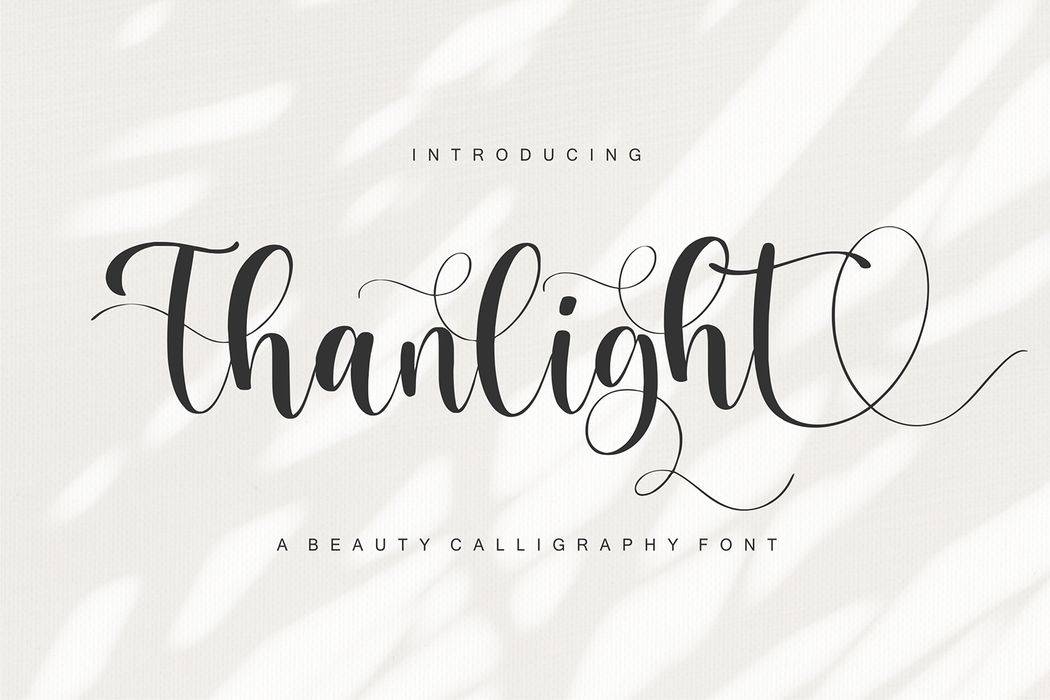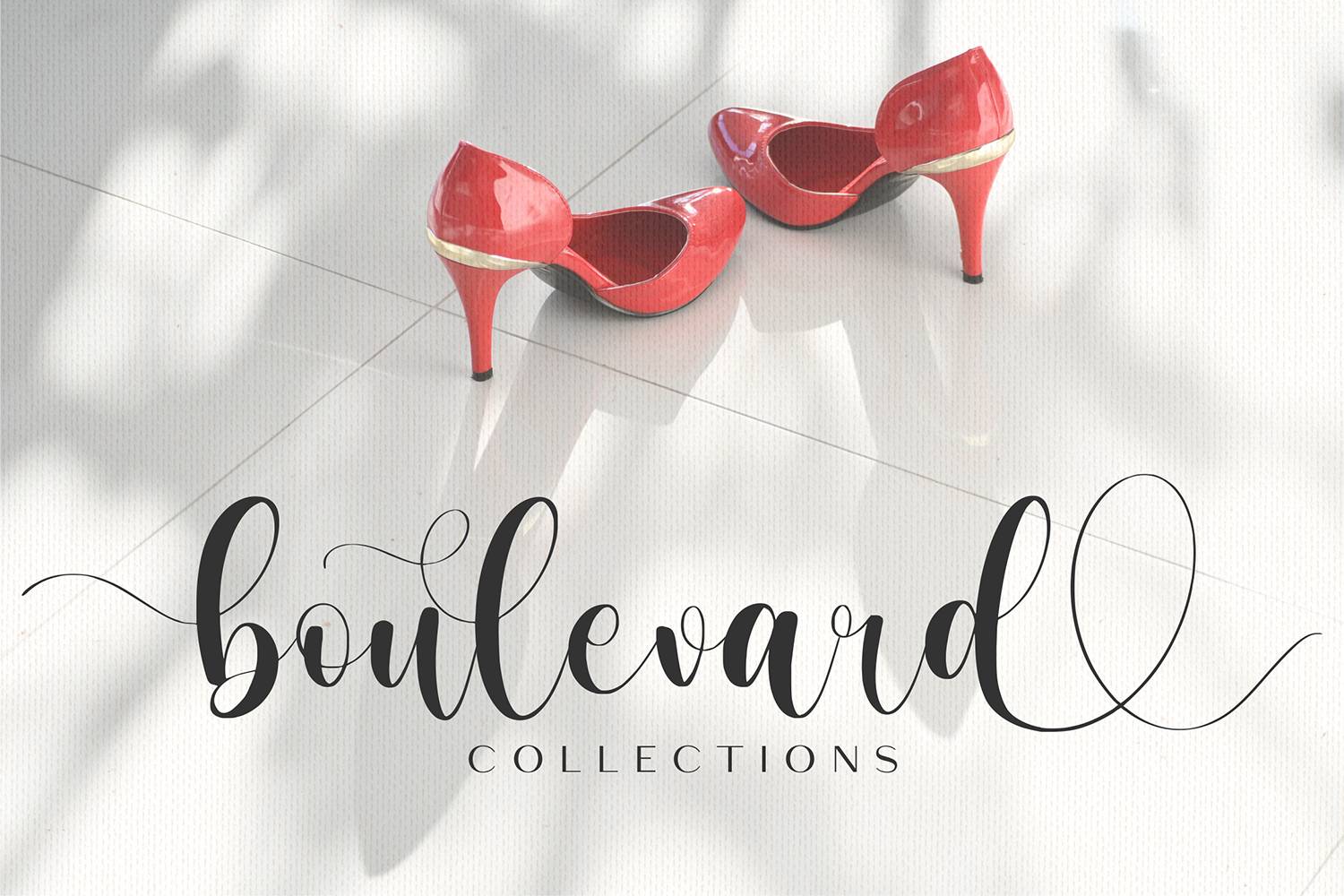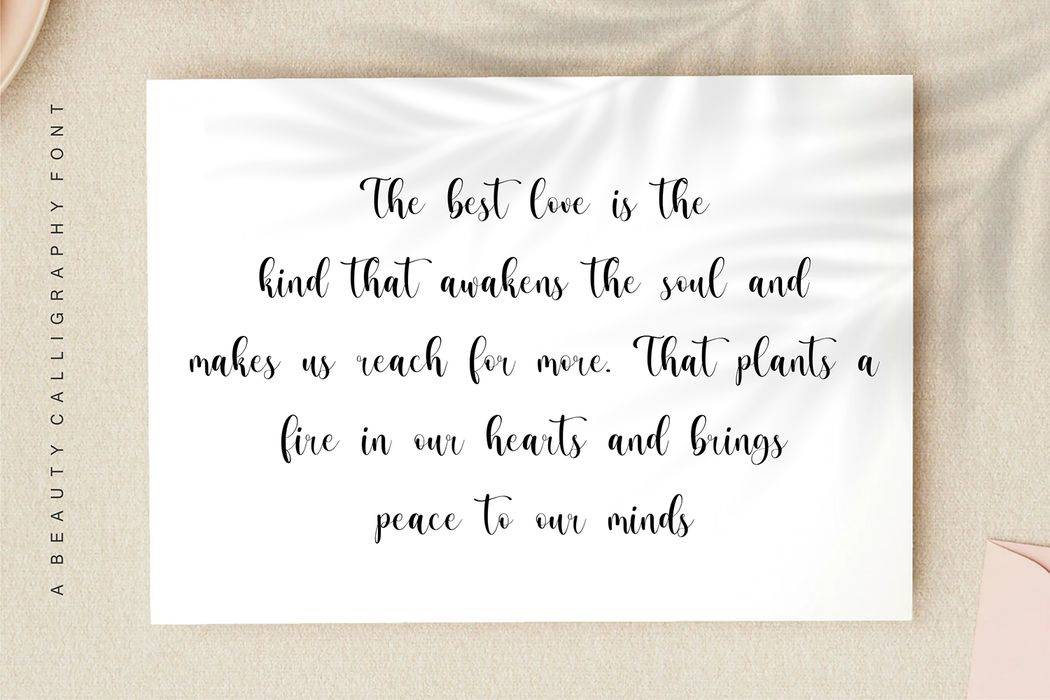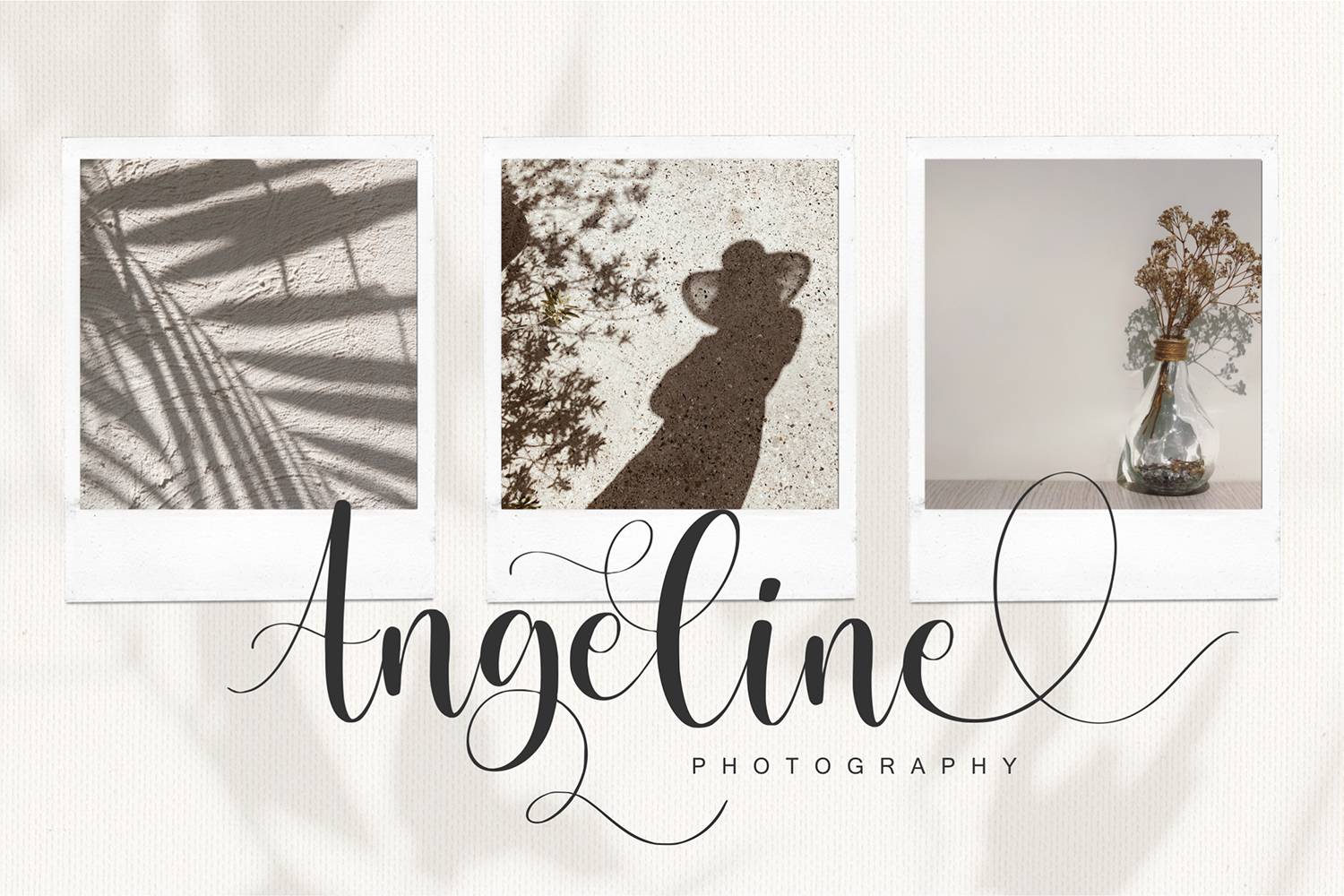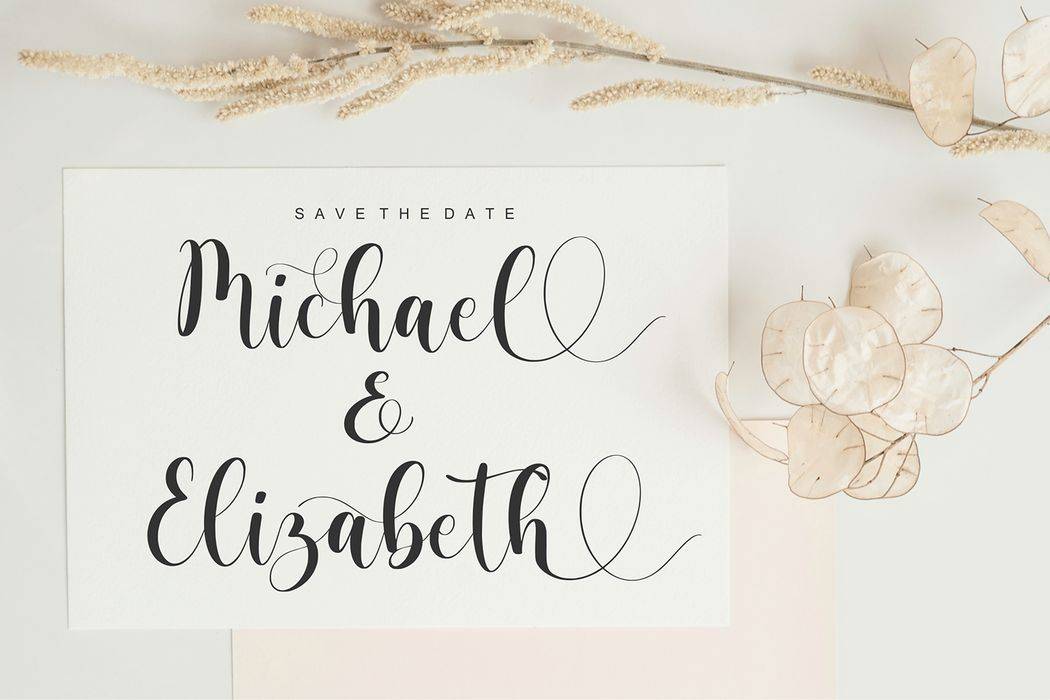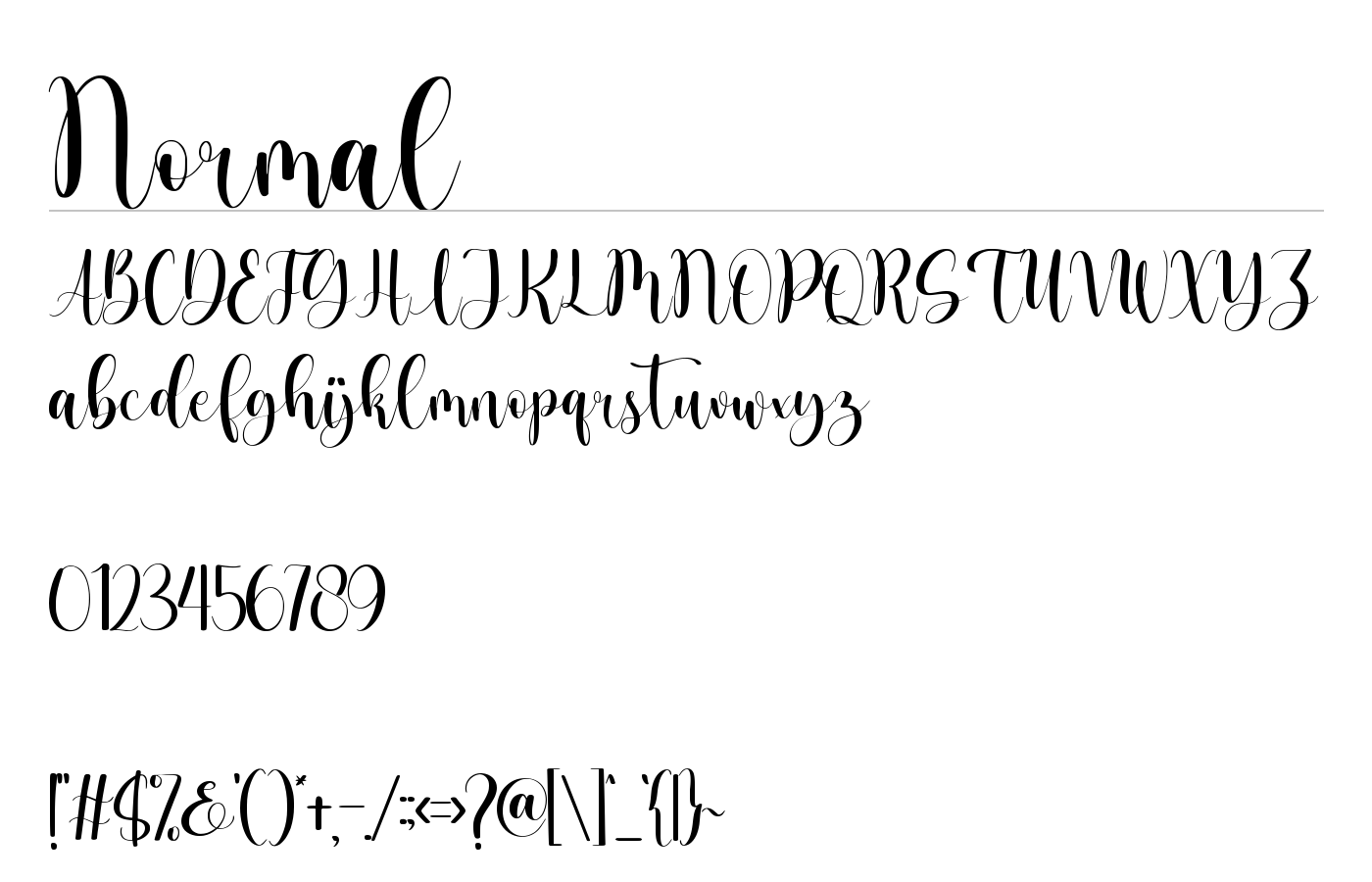
Thanlight is an elegant script font featuring tall, thin strokes with a high contrast between thick and thin lines, combined with delicate, flowing flourishes that add a graceful, handwritten feel. Its playful yet sophisticated style is perfect for invitations, branding, or any design needing a touch of charm and refinement. This font shines in decorative headlines and logos, where its intricate details can be fully appreciated.
Thanlight Font